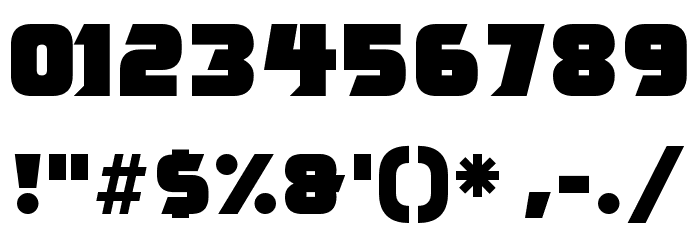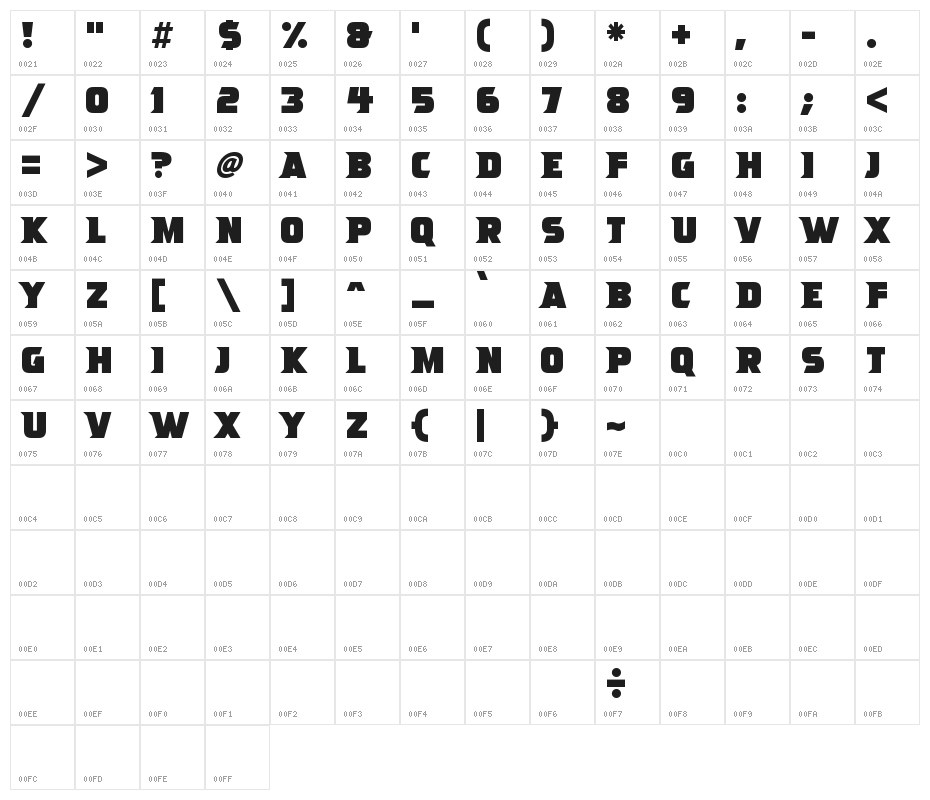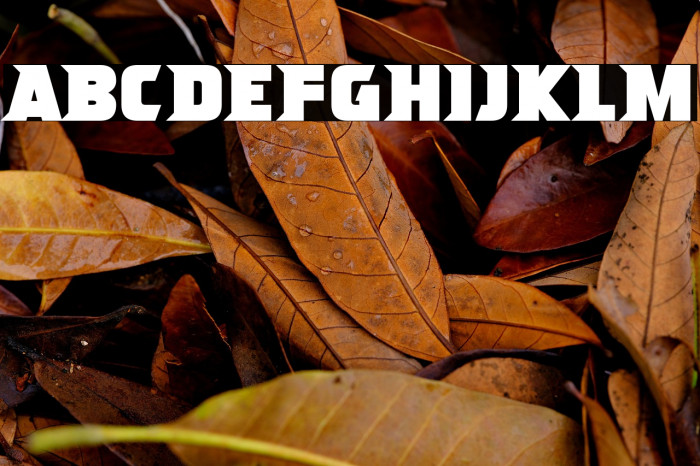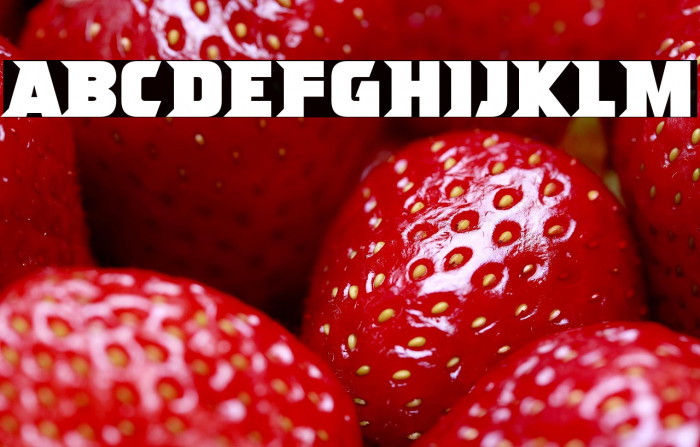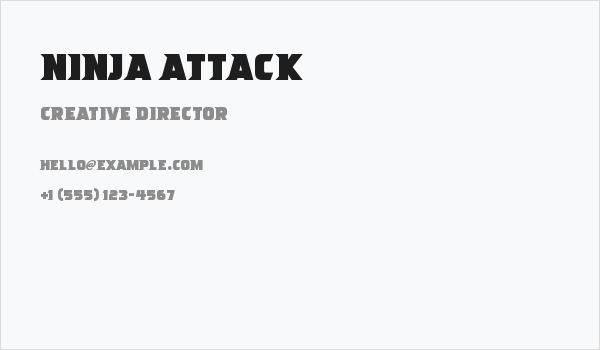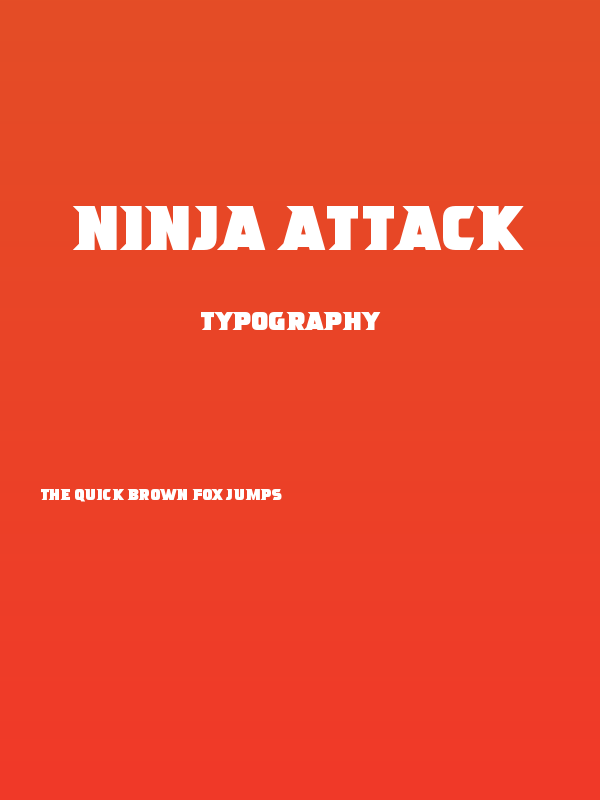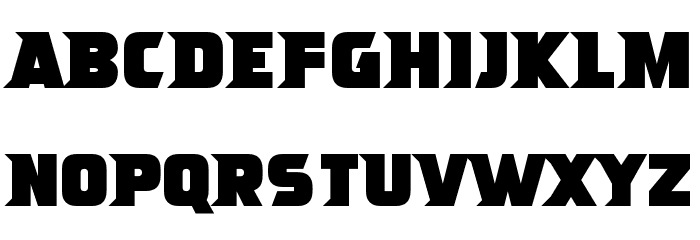
Ninja Attack Font
Ninja Attack Description
This font features a bold and dynamic design with sharp, angular edges and a strong presence. The characters are heavily stylized with a geometric influence, giving them a modern and aggressive look. The uppercase and lowercase letters maintain a consistent weight and width, creating a uniform appearance. The numerals and special characters follow the same design principles, ensuring cohesion across all elements. This font is ideal for projects that require a striking and impactful visual statement.
| Proposed Projects | Perfect for video game titles, action movie posters, sports branding, and dynamic advertising campaigns. |